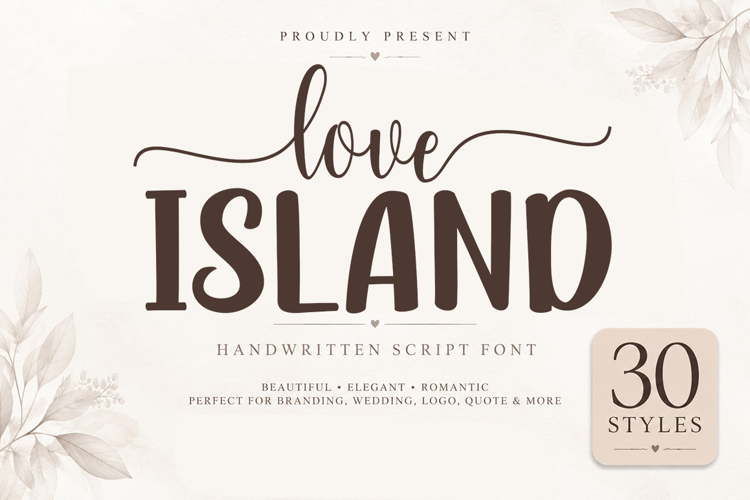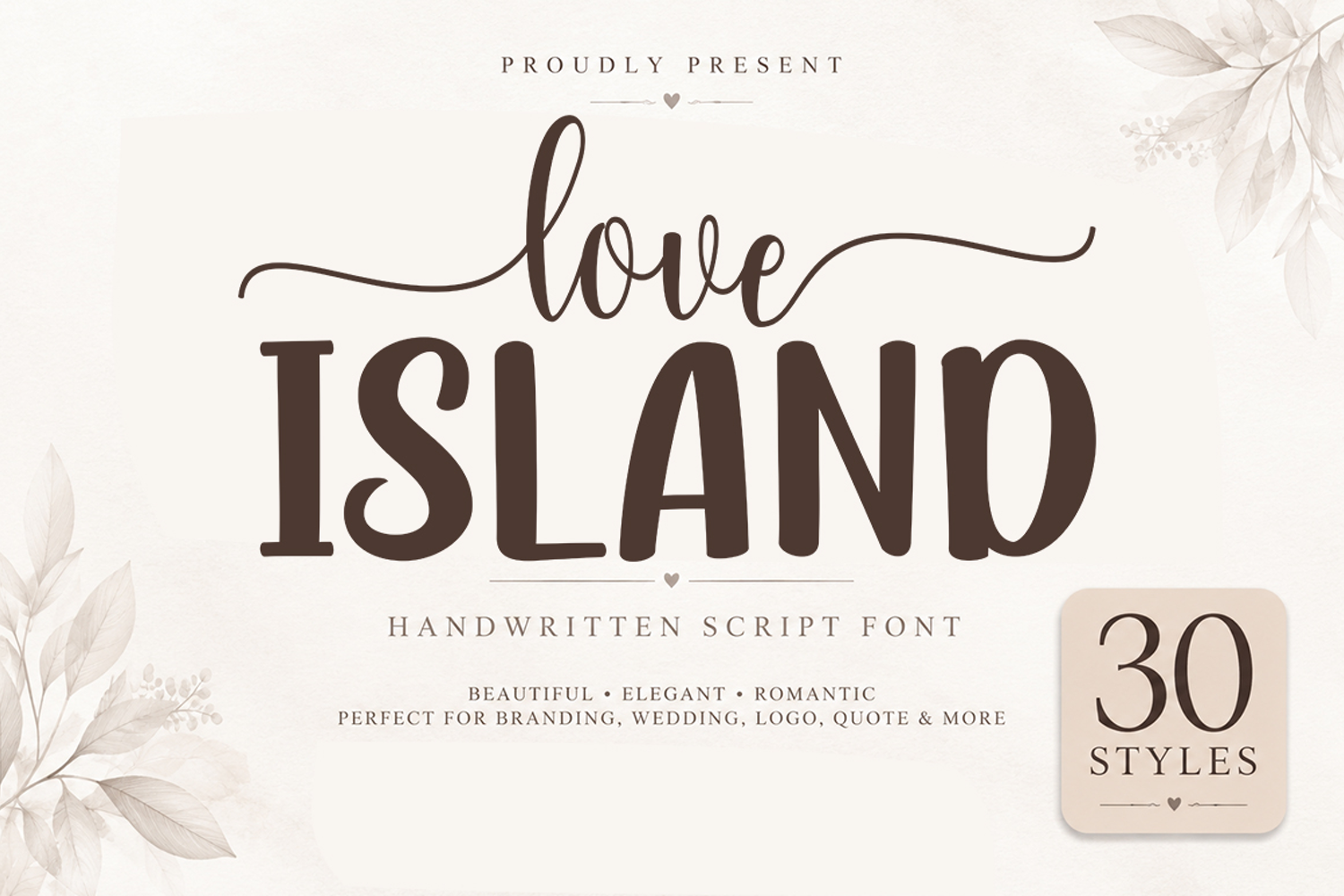
Love Island is a charming handwritten script font that blends graceful curves with a relaxed, natural flow. Designed with smooth strokes and elegant swashes, it brings a romantic and modern feel to every project. Whether you're creating wedding invitations, branding, logos, social media graphics, or heartfelt quotes, Love Island adds warmth, personality, and timeless elegance.
This font family includes 30 carefully crafted styles, giving you the flexibility to create everything from delicate handwritten looks to bold statement typography. Each style maintains a cohesive handwritten character while offering a variety of weights to suit different creative needs.
Love Island is perfect for designers, crafters, and creatives looking for a versatile script font that stands out in both print and digital designs.